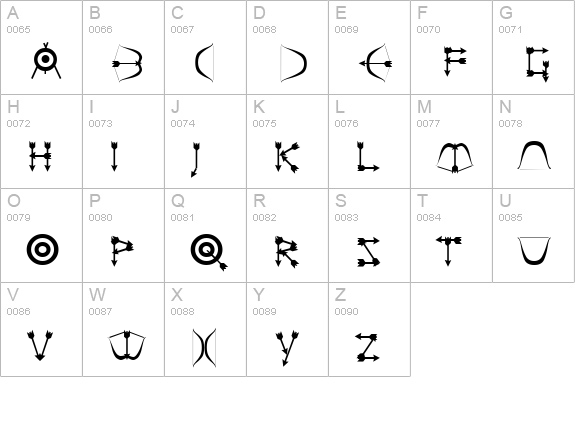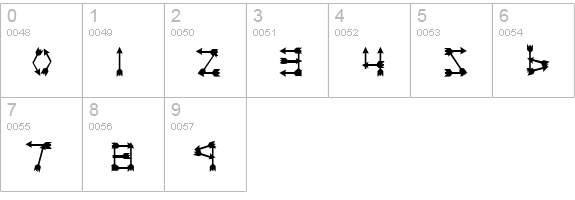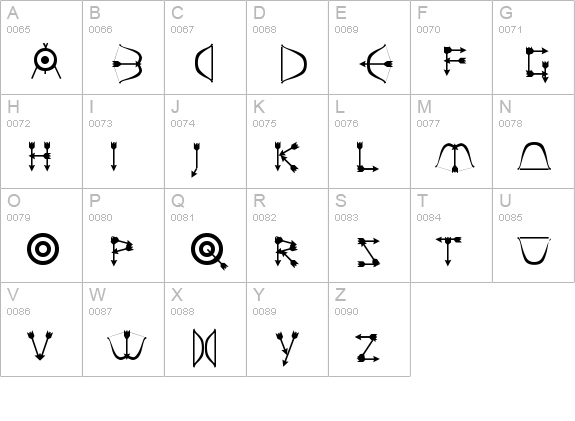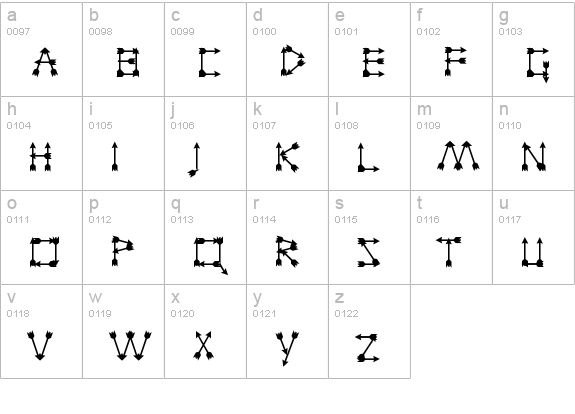
Mestize Font Details
Mestize is a stunning font that effortlessly blends modernity with elegance. Its sleek and stylish design exudes sophistication, making it the perfect choice for a wide range of design projects. The clean lines and unique letterforms of Mestize give any text a touch of class and refinement. What sets Mestize apart is not only its impeccable design but also the fact that it is available for free. That's right, this exquisite font can be yours without any cost. You can easily download Mestize at FontsMarket.com and elevate your design projects with this exquisite typeface. Whether you're working on branding, editorial design, or any other creative endeavor, Mestize is sure to make a lasting impression. With its versatility and timeless appeal, this font is a must-have for any designer looking to add a touch of sophistication to their work. Download Mestize today and experience the beauty and elegance of this exceptional font.